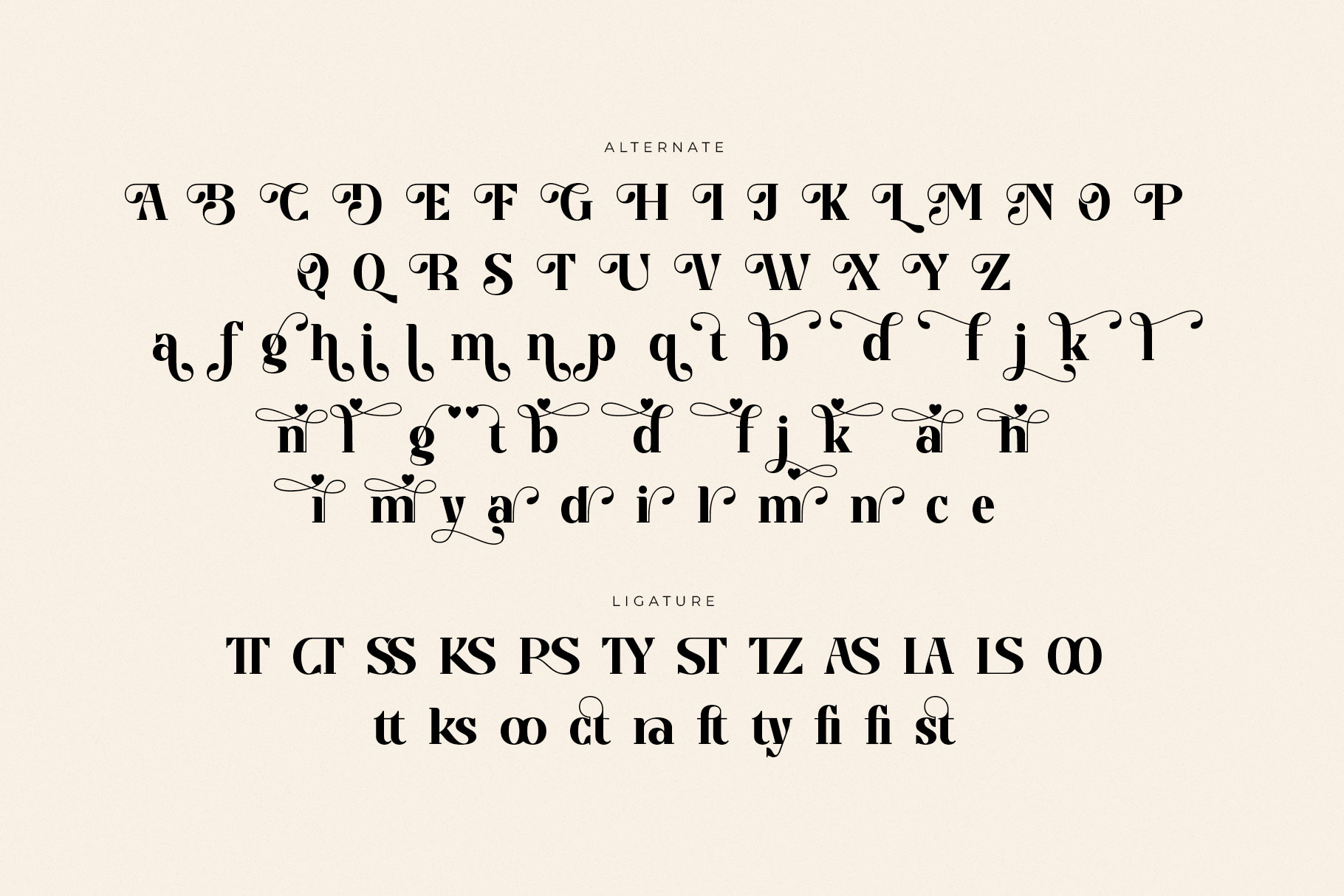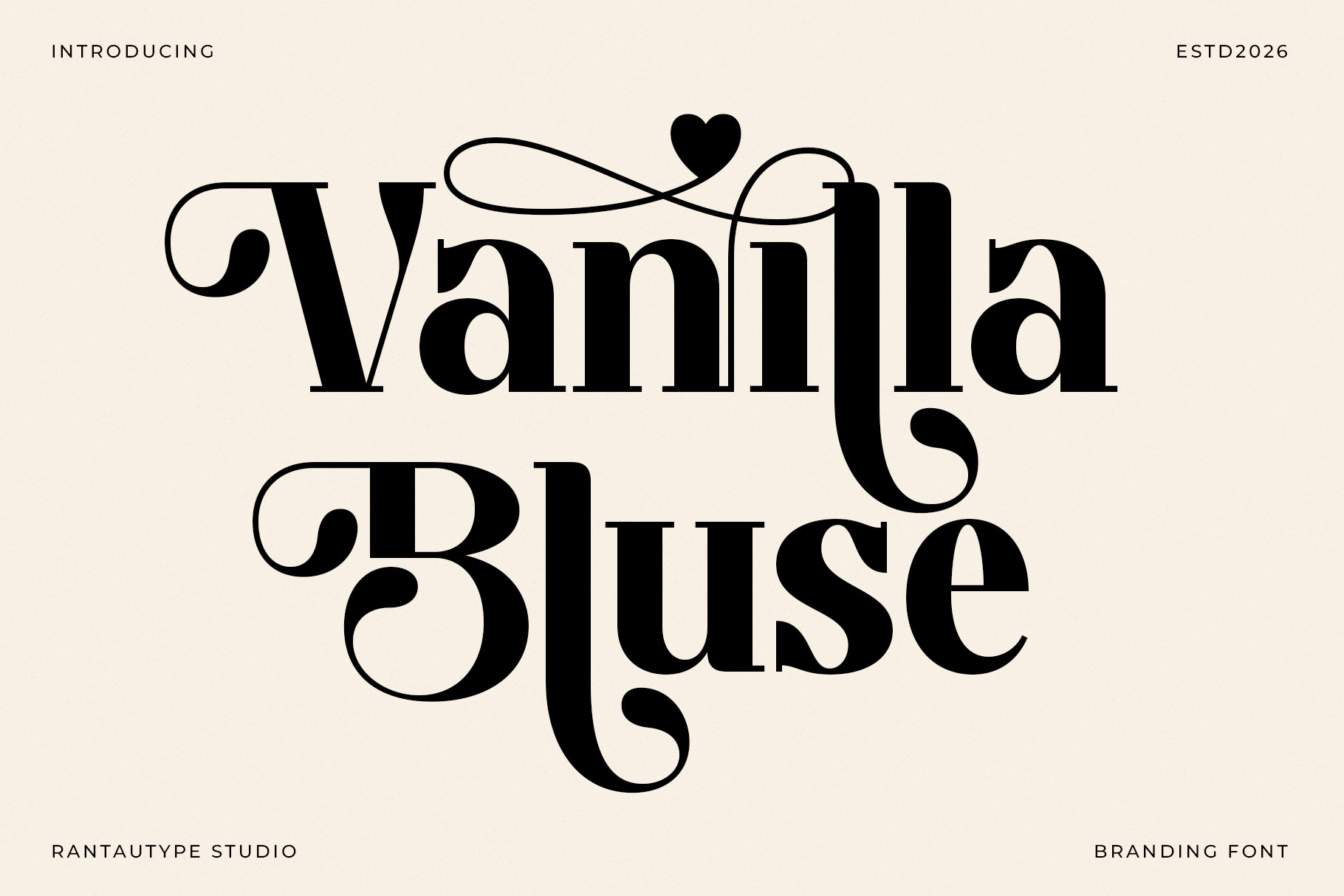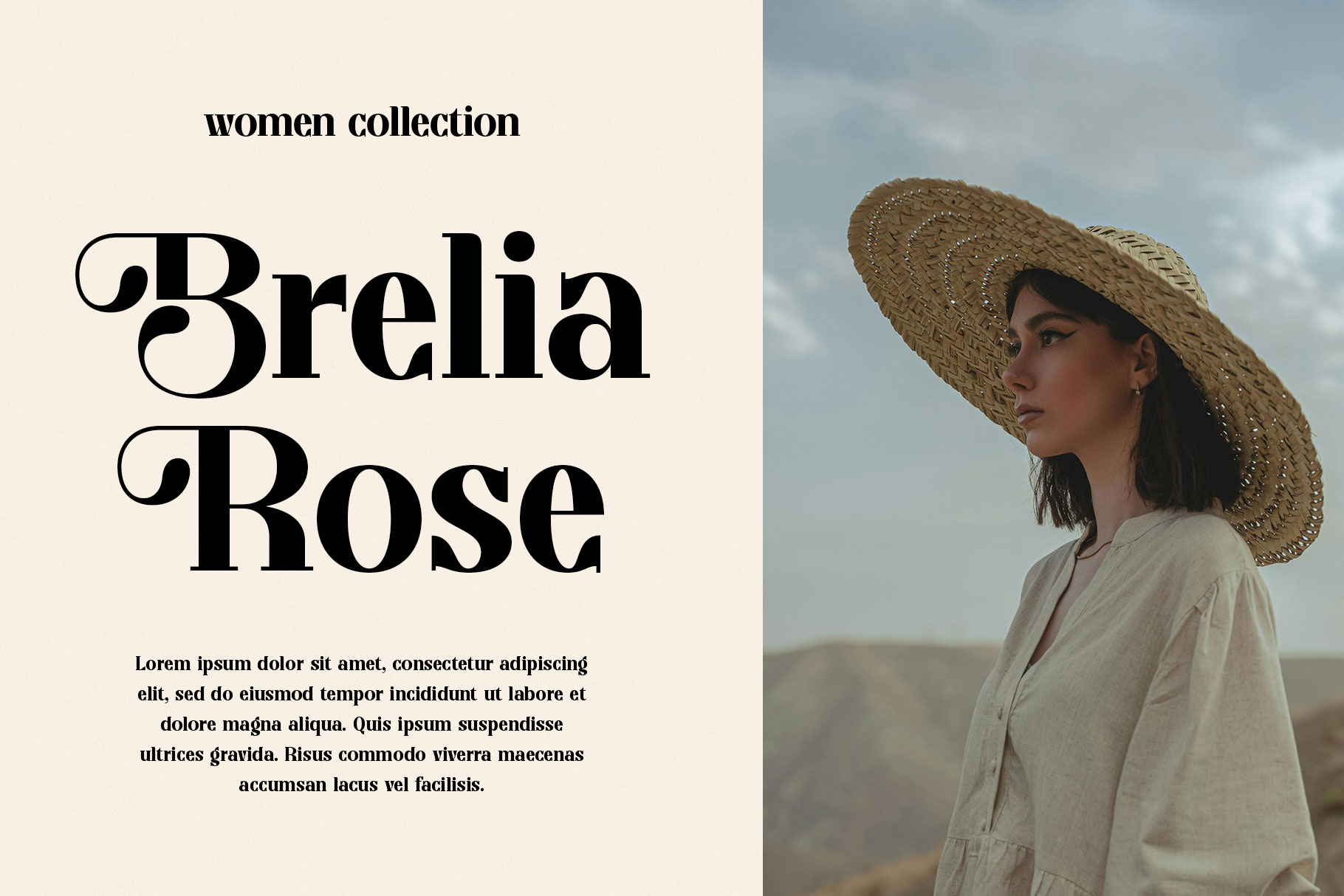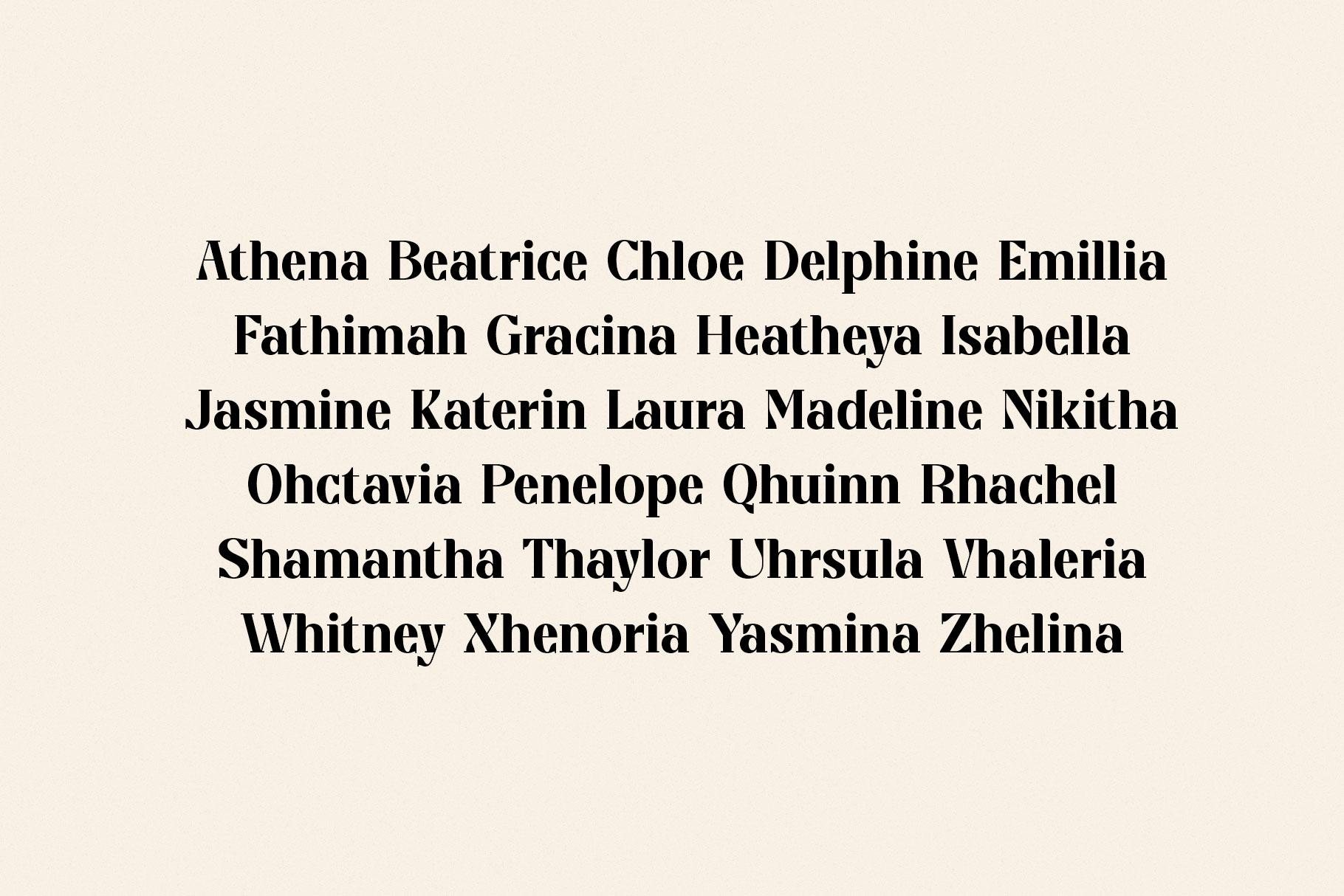
Vanilla Bluse Regular
Vanilla Bluse Italic
Vanilla Bluse is bold font embrace of grace, elegance, and timeless sophistication. Designed to command attention while maintaining a refined aesthetic, this typeface blends classic serif traditions with a modern, confident edge. Vanilla Bluse come with bold weight creates a powerful visual presence, making it ideal for high-end branding, editorial layouts, and luxury identity systems.
Vanilla Bluse is a perfectly choice for any creative endeavor, creating, modern, lifestyle design such as logotype, title, cover, branding, invitations, wedding designs, display and magazine, social media posts, advertisements, printed quotes, product packaging, corporate brand, product designs, labels, photography, watermarks, special events and any other project with modern touch.
Vanilla Bluse Branding Serif Font